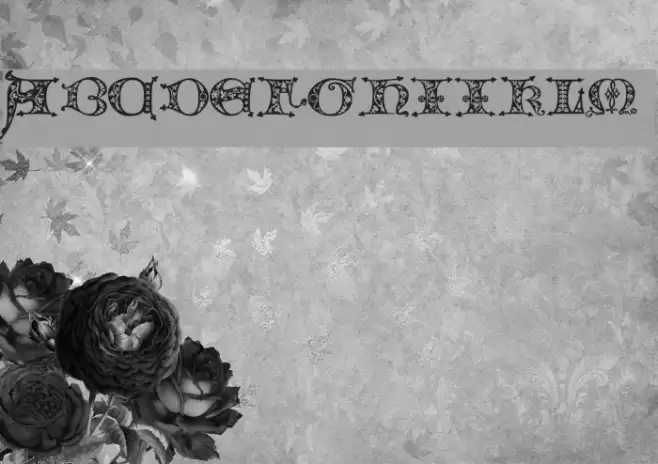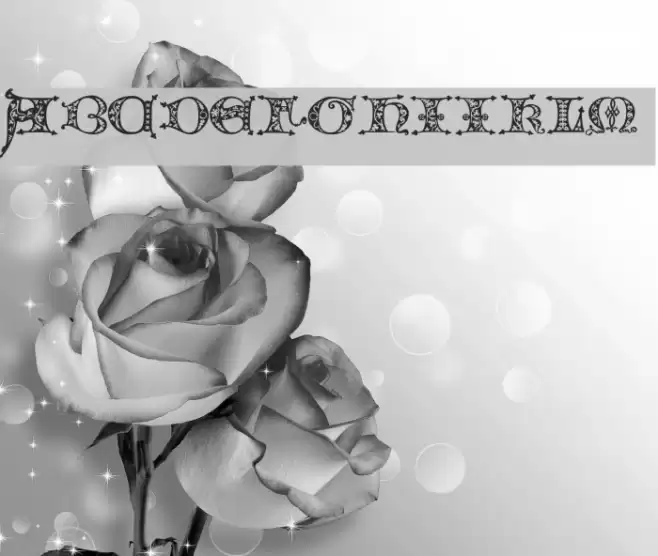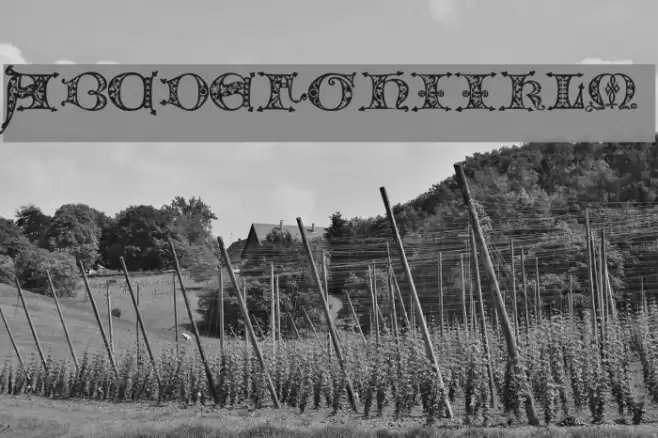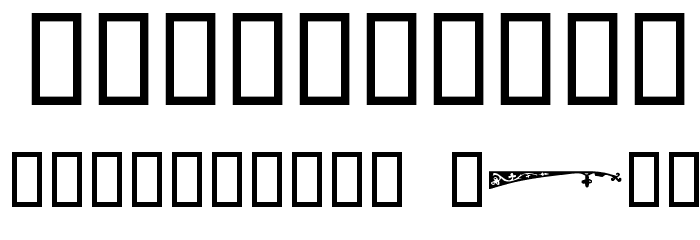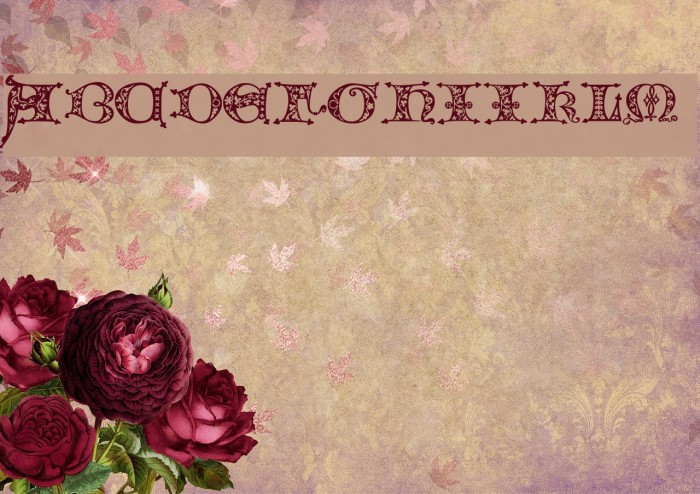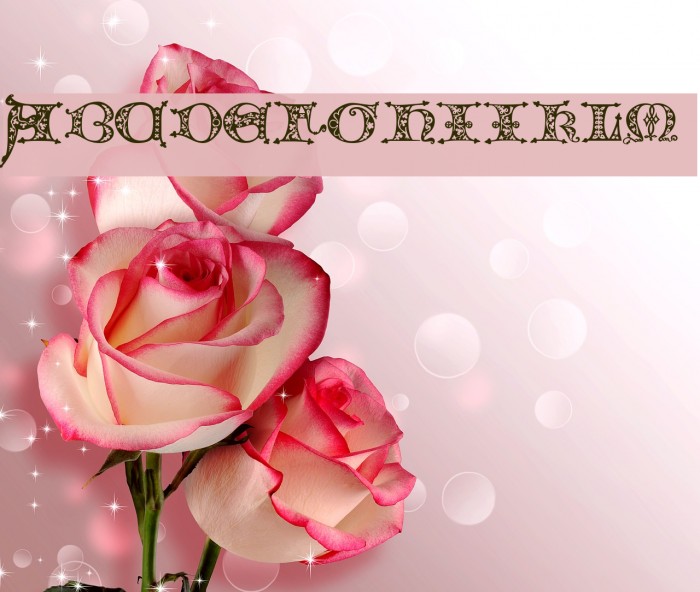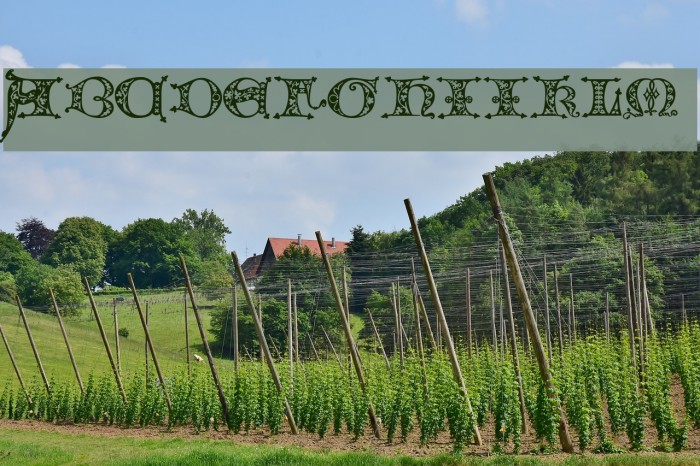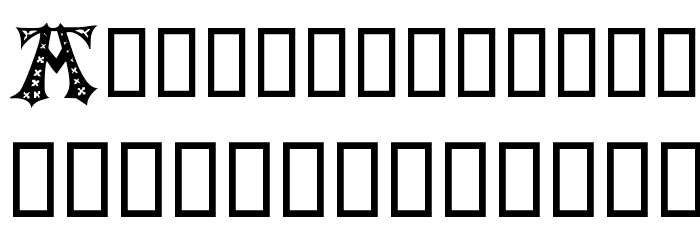
Florimel!" Font
Florimel!" Description
This font is a highly decorative and ornate typeface, characterized by intricate floral and star-like embellishments that adorn each letter. The uppercase letters are particularly elaborate, with swirling patterns and detailed accents that give them a regal and vintage appearance. The lowercase letters maintain a consistent style, though they are slightly less embellished, allowing for readability while still maintaining the overall decorative theme. The numbers and special characters are similarly styled, ensuring a cohesive look across all glyphs. This font is ideal for projects that require a touch of elegance and historical charm, such as invitations, certificates, or branding for luxury products.
An ornate and decorative font with intricate floral embellishments from Gothic fonts.
- Overall Style: Vintage